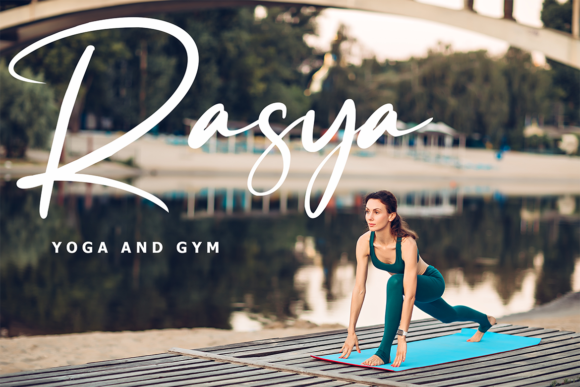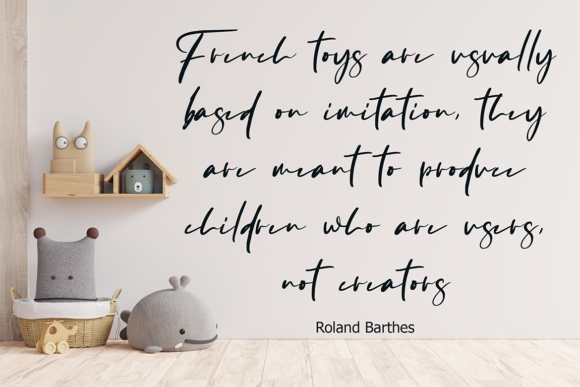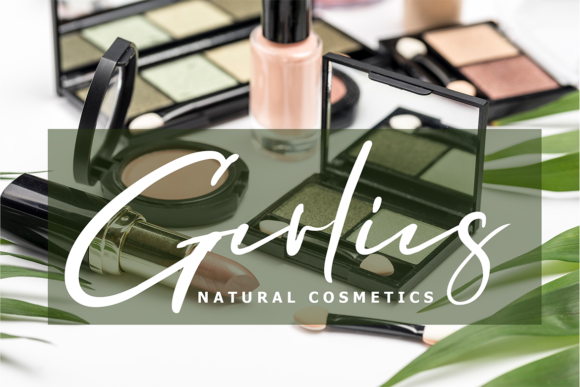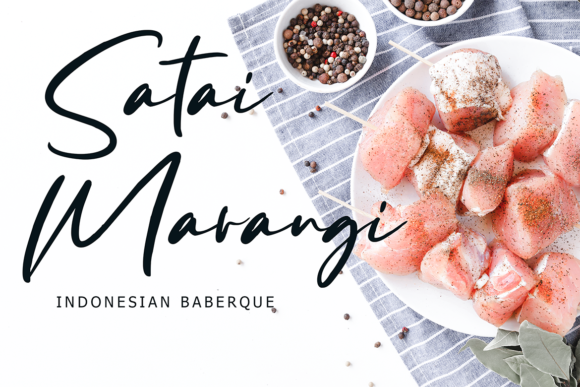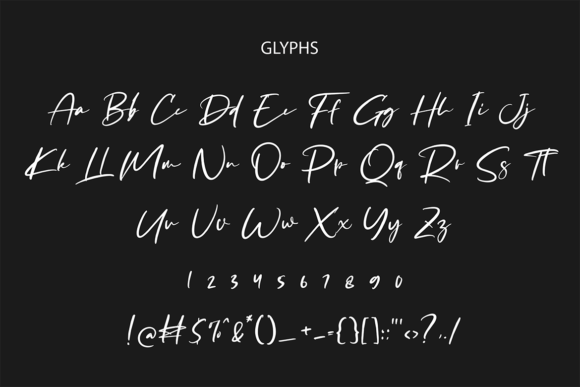
Unleashing Your Creativity with the Perfect Font
Have you ever stared at a blank page, struggling to find the right words to bring your creative vision to life? We’ve all been there – it’s like trying to find the perfect brush stroke in a sea of possibilities. But what if you had a secret weapon to elevate your designs and make them truly unforgettable?
Enter the Caselina Font, a stunning handwritten font that will transport your designs to a world of elegance and sophistication. Whether you’re crafting Instagram-worthy graphics or delicate calligraphy scripts for DIY projects, Caselina Font is the perfect partner in crime. Its beautiful, flowing lines will breathe new life into your creative ideas, making them stand out from the crowd and leave a lasting impression.
- Unique Characteristics: Elegant, modern script font with a touch of vintage flair, ideal for invitations, wedding stationery, and other formal events
When I first laid eyes on the Caselina font, I was immediately drawn to its elegance and sophistication ✨. The font has a beautiful, classic feel to it that’s reminiscent of traditional script fonts. It’s perfect for any design project that requires a touch of luxury and refinement.
- The font’s versatility is one of its strongest points. It can be used for a wide range of applications, from wedding invitations to luxury brand logos.
- The font’s elegant feel makes it perfect for creating a sense of sophistication and refinement in any design project.
- Caselina’s unique script style makes it stand out from more traditional serif fonts.
However, as beautiful as the Caselina font is, it’s not without its limitations ⚠️. The font’s script style can sometimes make it difficult to read, especially in smaller font sizes. Additionally, the font’s elegance can sometimes come across as too formal or stuffy.
Overall, I would give the Caselina font 4 out of 5 stars. While it’s not perfect, its beauty and versatility make it a valuable addition to any designer’s toolkit. With a little bit of care and attention to detail, the Caselina font can help take your designs to the next level.
- Use Caselina Font in conjunction with elegant or vintage-themed designs.
Caselina Font is suitable for:
- Vintage-inspired advertisements and marketing materials.
- Personalized gifts and stationery.
Alternatives to Caselina Font
Great Vibes is a modern, elegant script font suitable for headings and titles. It is perfect for creating a sophisticated and stylish look. Great Vibes is more ornate than Caselina Font, making it ideal for projects that require a touch of luxury and sophistication.
Alex Brush is a beautiful, handwritten font ideal for creating a personal and emotional connection with the audience. It is perfect for use in headings, titles, and body text when you want to convey a sense of warmth and approachability. Alex Brush is more cursive and expressive than Caselina Font, making it suitable for projects that require a more personal touch.
Pacifico is a modern, elegant script font with a relaxed and casual feel. It is perfect for creating a beachy, laid-back vibe and is suitable for use in headings, titles, and body text. Pacifico is more casual and laid-back than Caselina Font, making it ideal for projects that require a relaxed and approachable tone.
Dancing Script is a beautiful, elegant script font with a playful and dynamic feel. It is perfect for creating a fun and lively atmosphere and is suitable for use in headings, titles, and body text. Dancing Script is more playful and dynamic than Caselina Font, making it ideal for projects that require a sense of energy and excitement.
Q: What is the recommended font size for optimal readability with Caselina Font?
The recommended font size for optimal readability with Caselina Font is between 10pt and 24pt. This range allows for clear and legible text while maintaining the font’s aesthetic appeal.
Q: Does Caselina Font support multiple languages?
Caselina Font includes support for multiple languages, including Latin, Cyrillic, and Greek scripts. However, please note that some languages may require additional font features or customizations for optimal support.